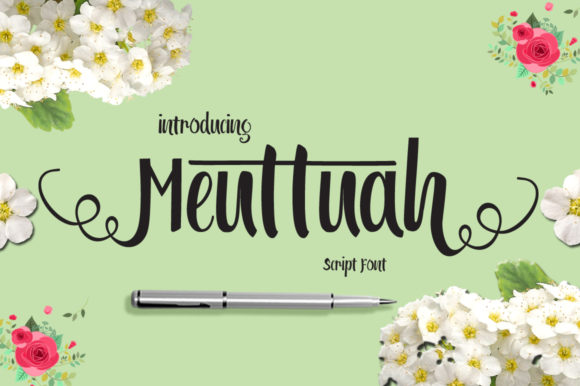
Dive into the world of Meuttuah Font, a script calligraphy masterpiece crafted by Microcreative. Feel awe-struck as whimsical strokes dance across your designs with the elegance of a ballerina. Each letter brims with personality and style, ready to captivate audiences and ignite imaginations. Whether you're a designer, marketer, or simply a lover of beautiful type, Meuttuah Font holds the key to unlocking your creative potential.
Immerse yourself in the font's enchanting charm, letting its curves effortlessly elevate your projects. From wedding invitations and logos to branding and social media graphics, Meuttuah Font adds a touch of magic to every creation. Its graceful lines and playful personality are sure to leave a lasting impression, making your designs shine brighter than the stars.
Step into a realm where creativity knows no bounds. With Meuttuah Font as your companion, you'll embark on a journey of self-expression and visual delight. Unleash your inner artist and let your imagination soar. Discover the power of typography as you weave your words into stunning works of art.